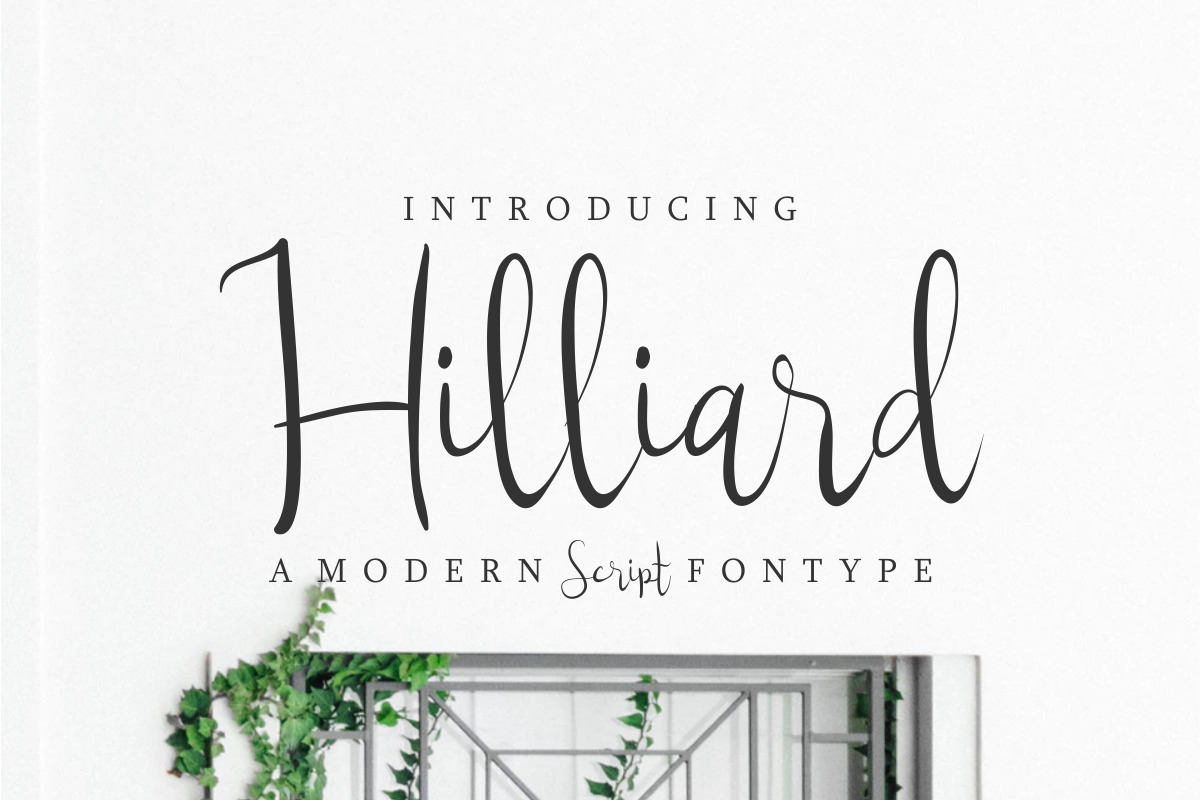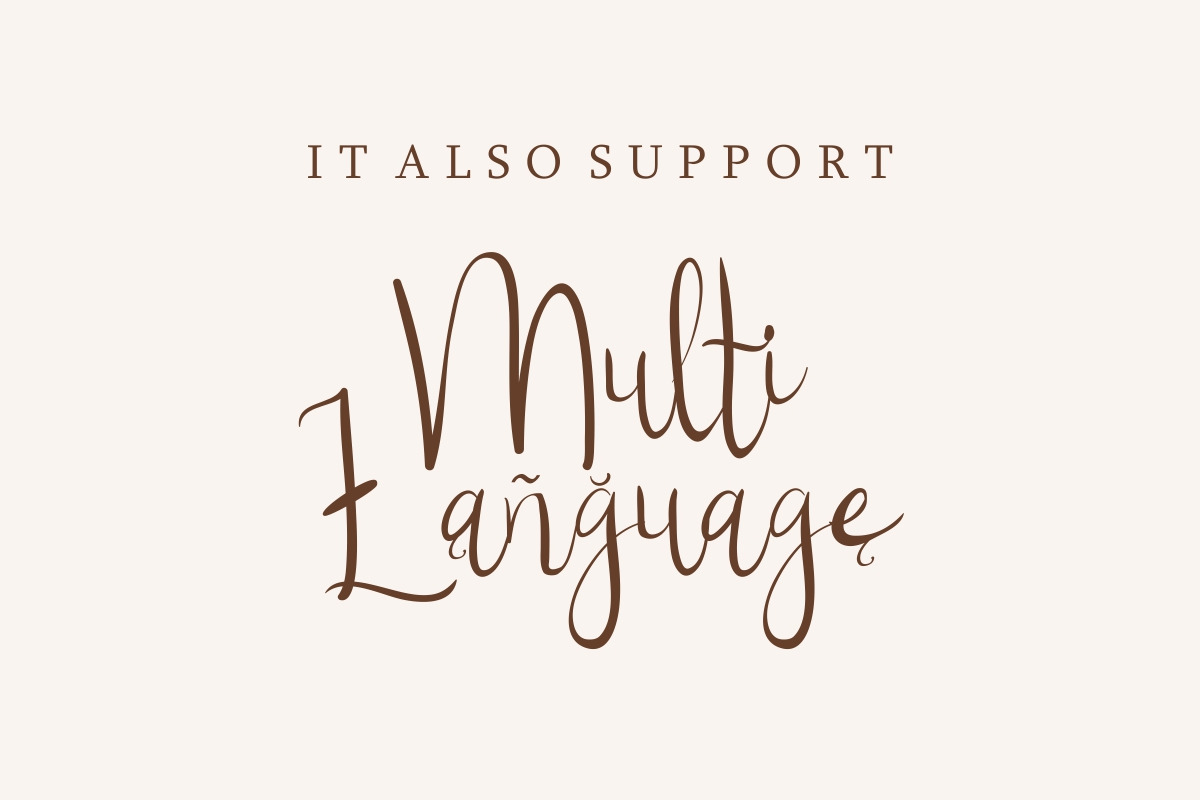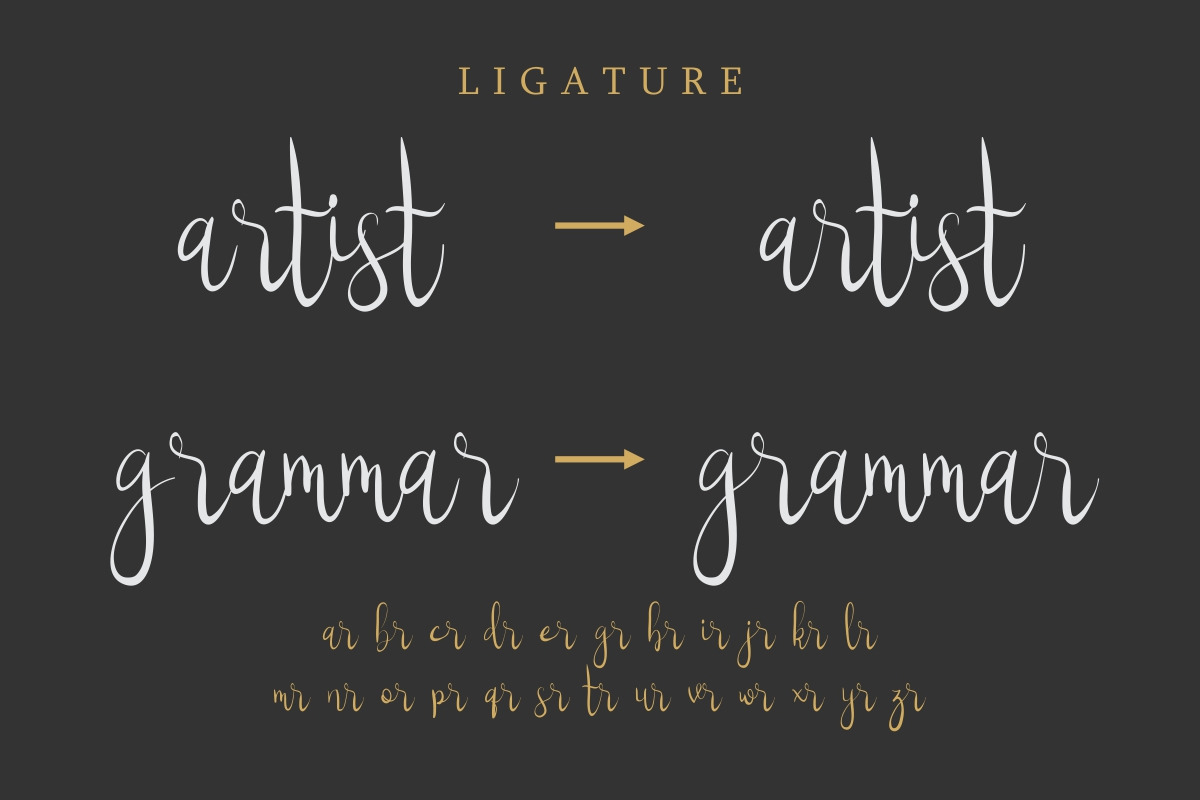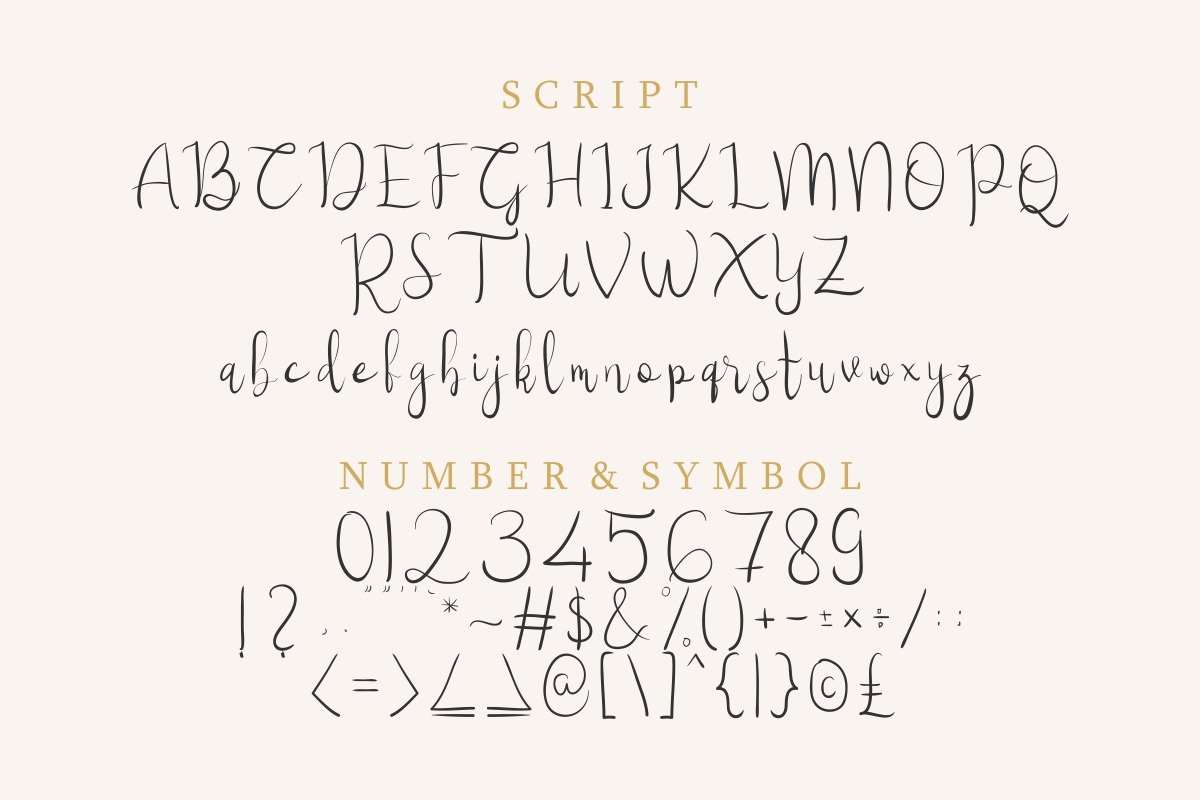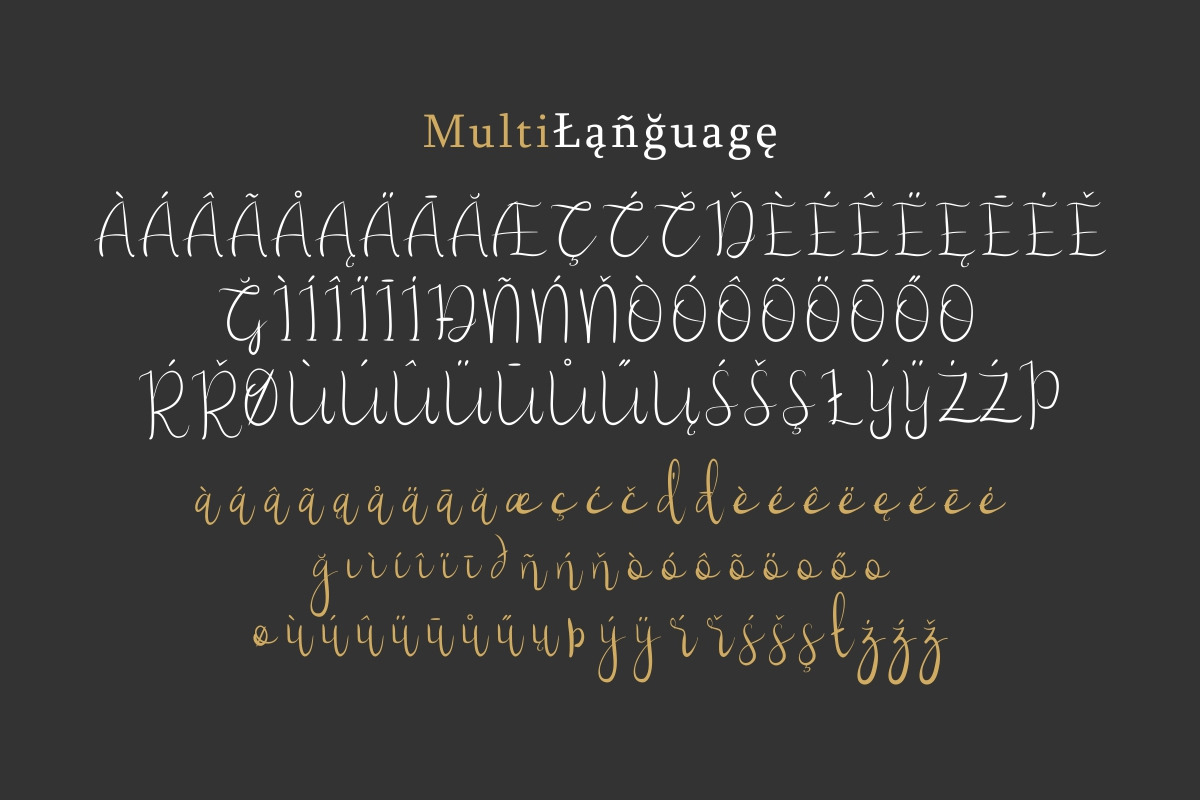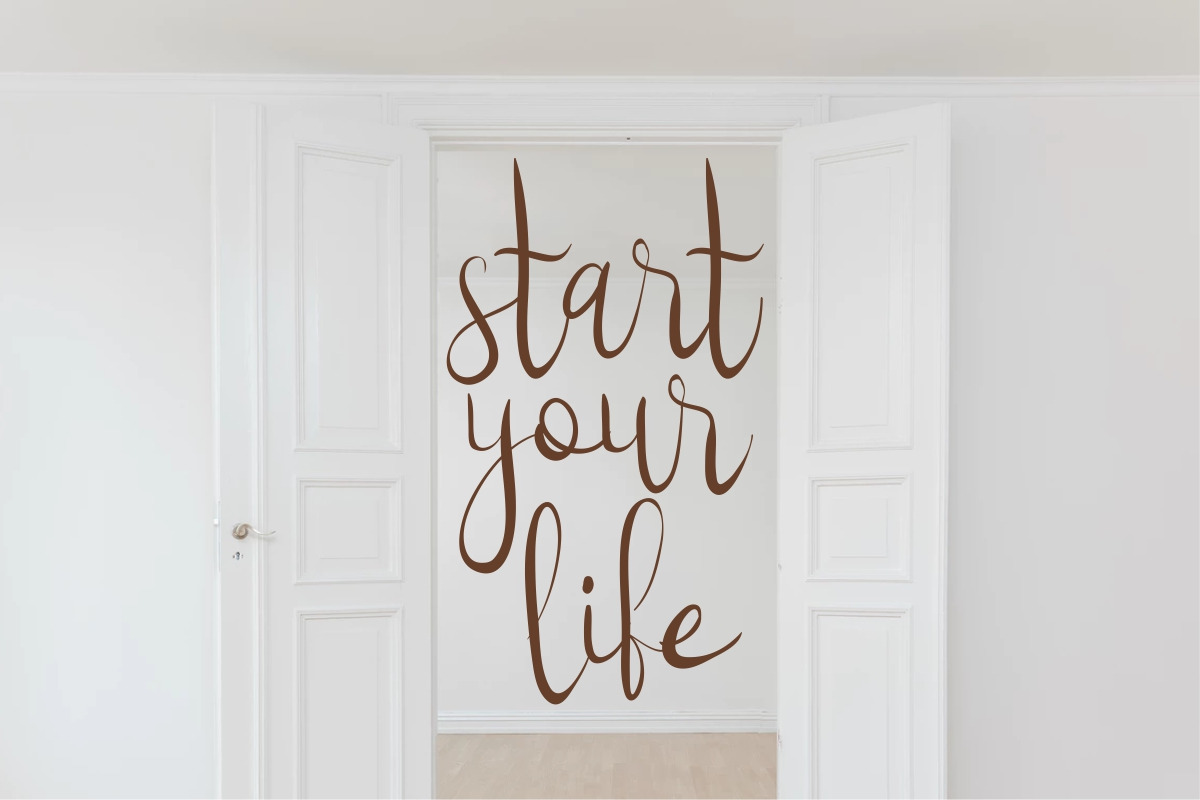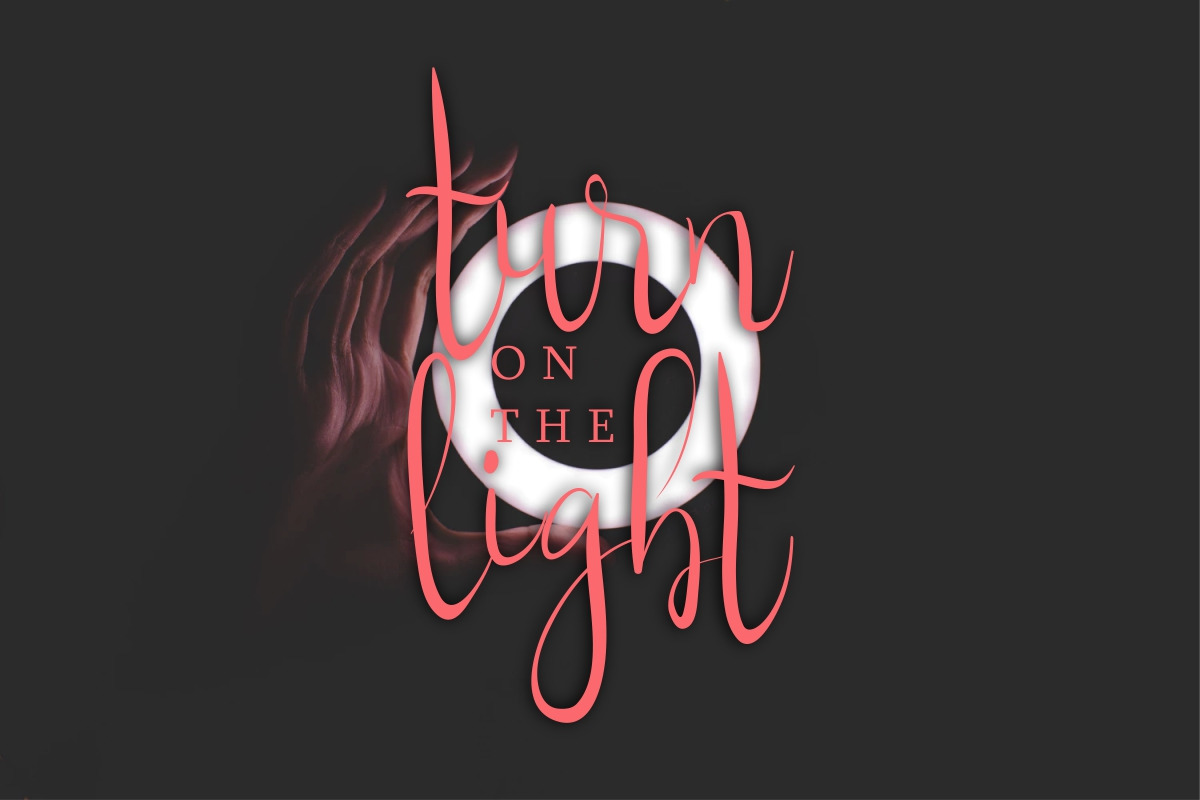
Hilliard Script Font
Hello….. Please meet Hilliard, our newest script typeface.
This is a new decorative script font with calligraphy style. It has a unique, elegant, and stylish glyph.
Plus it support multi-language